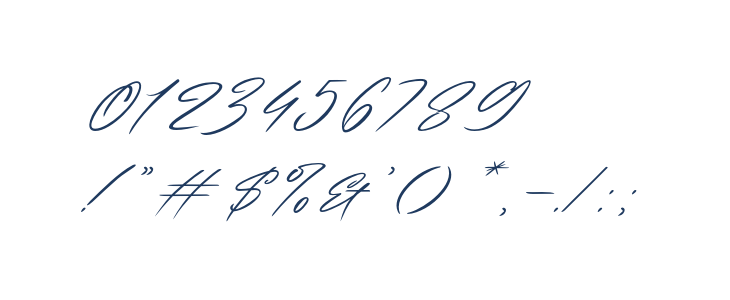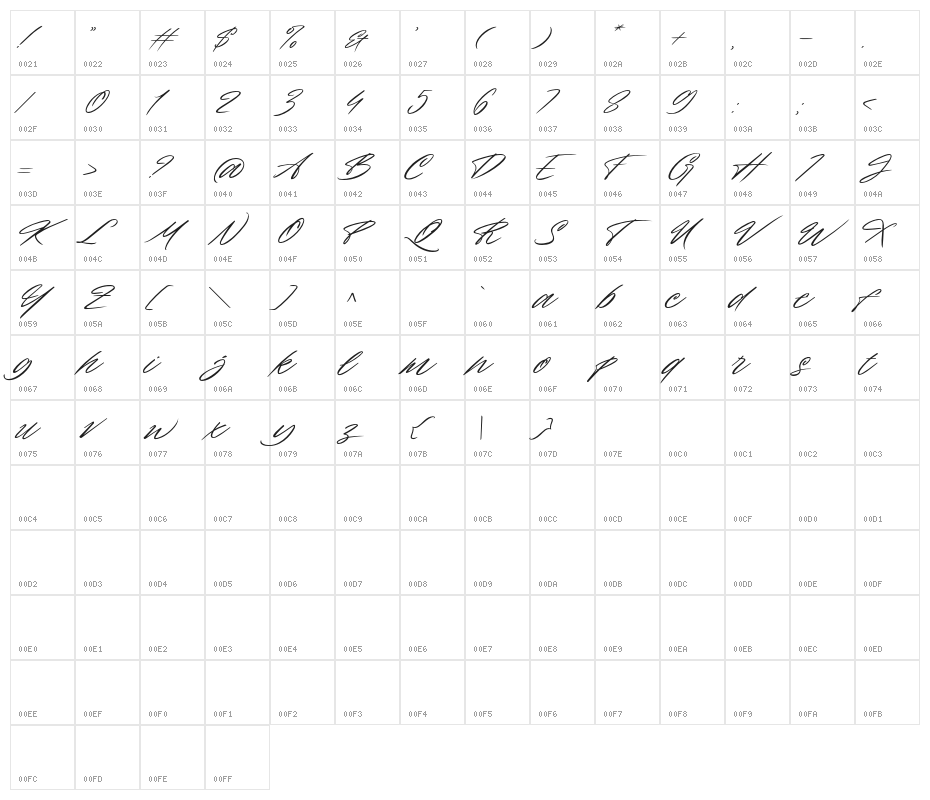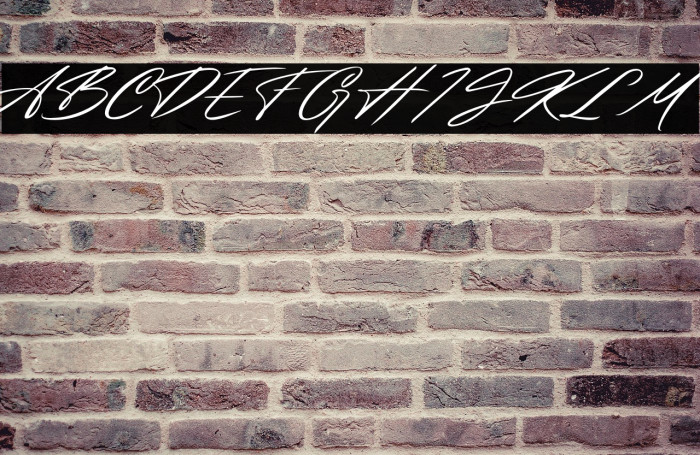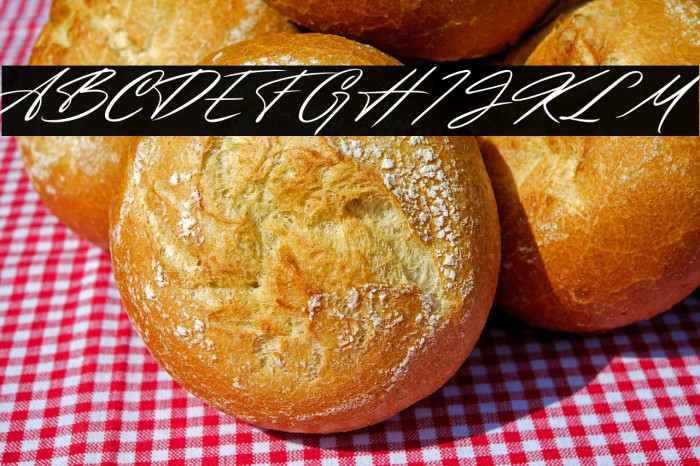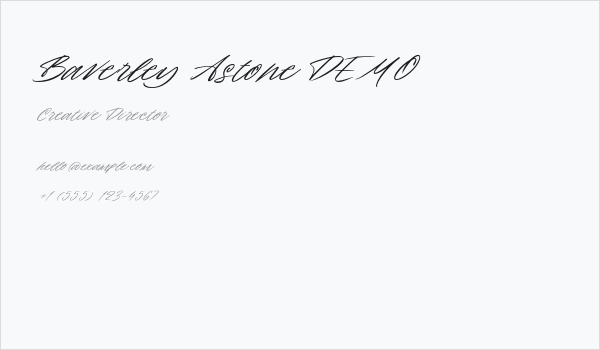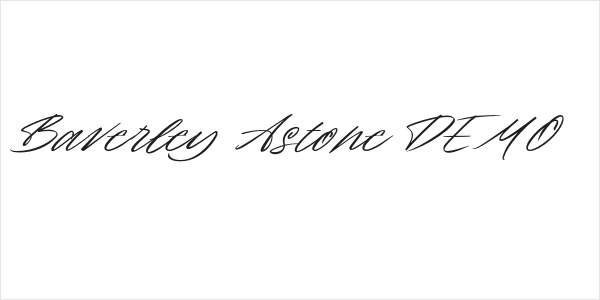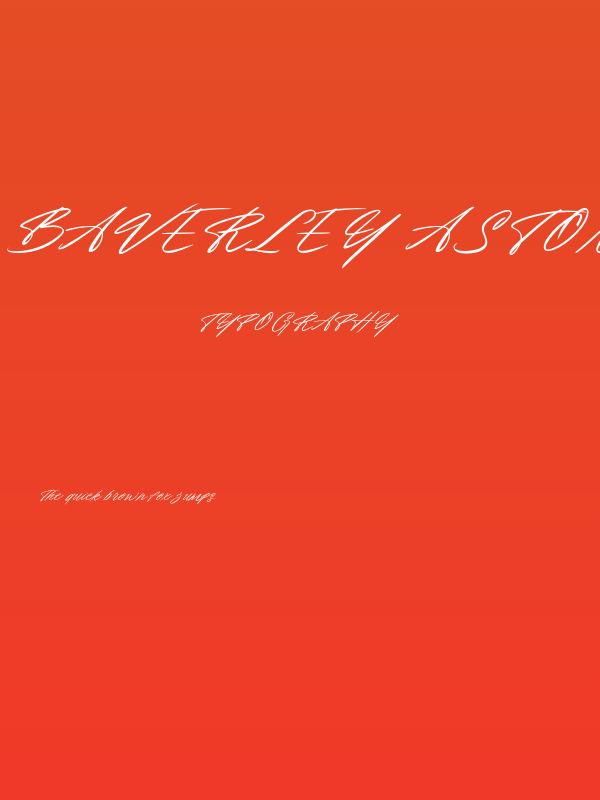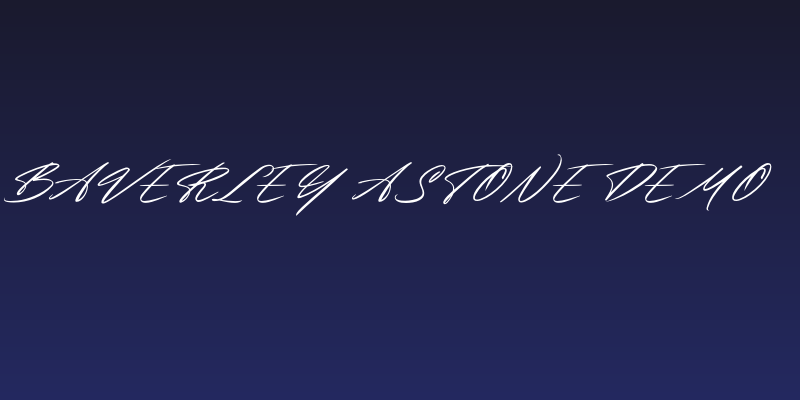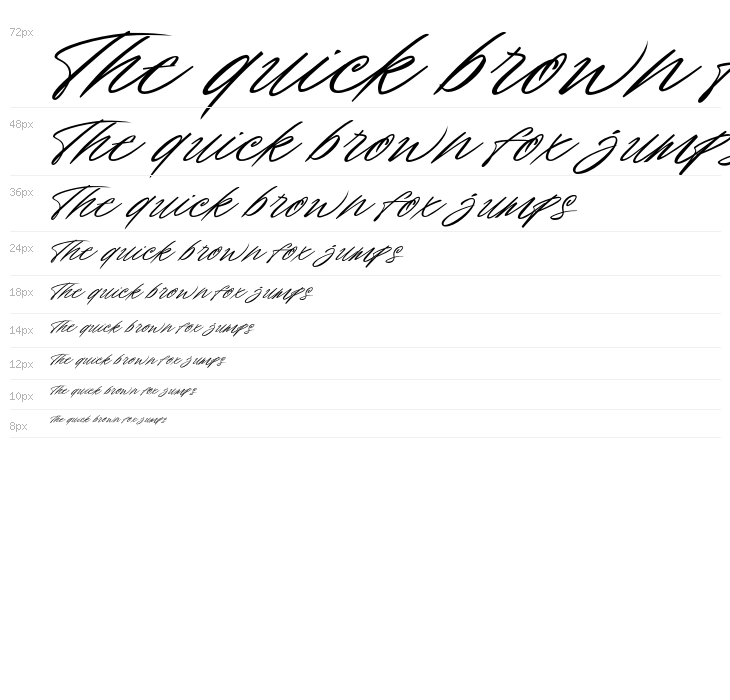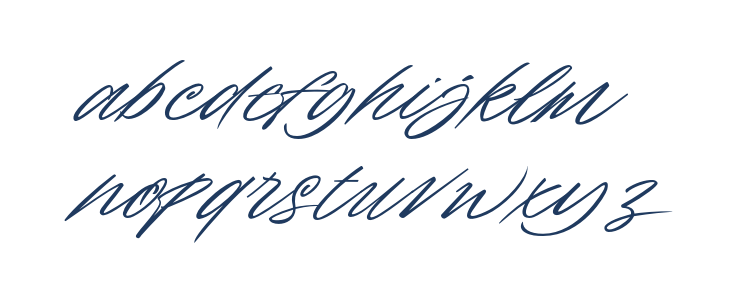
Baverley Astone DEMO Font
Baverley Astone DEMO Description
This elegant script font features fluid, cursive strokes that convey a sense of sophistication and grace. The uppercase letters are characterized by sweeping lines and flourishes, while the lowercase letters maintain a consistent flow with slightly exaggerated loops and curves. The numerals are designed with a similar flair, ensuring a cohesive look across all characters. The font's overall appearance is both stylish and legible, making it suitable for a variety of formal and creative applications. Its dynamic and expressive nature is enhanced by the moderate contrast in stroke thickness, adding to its visual appeal.
| Overall Style | Elegant, Decorative |
| Proposed Projects | Ideal for wedding invitations, elegant branding, greeting cards, and high-end product packaging. |